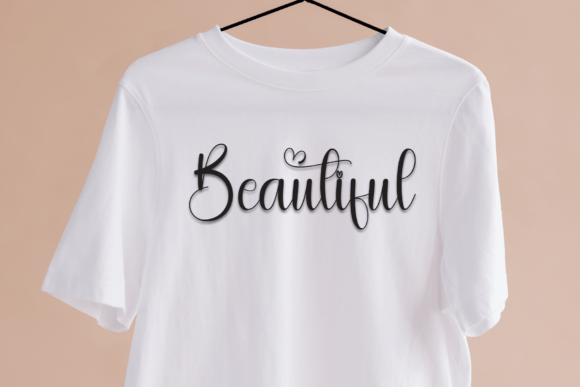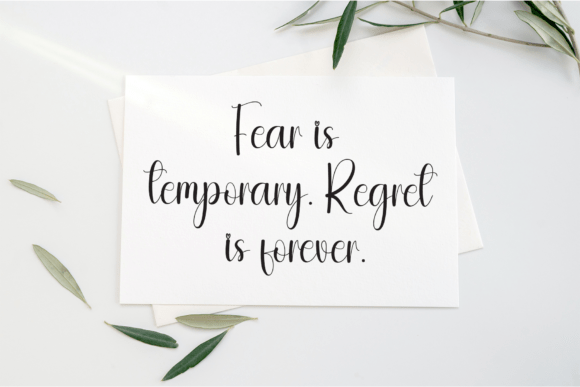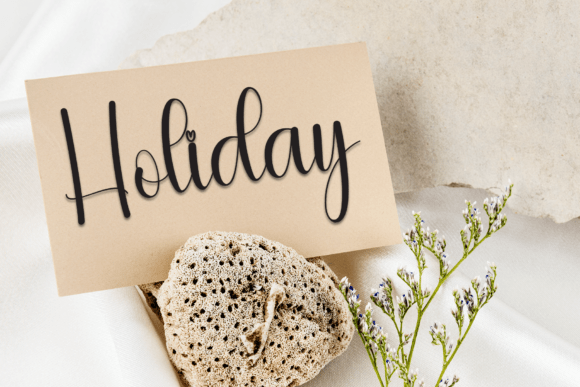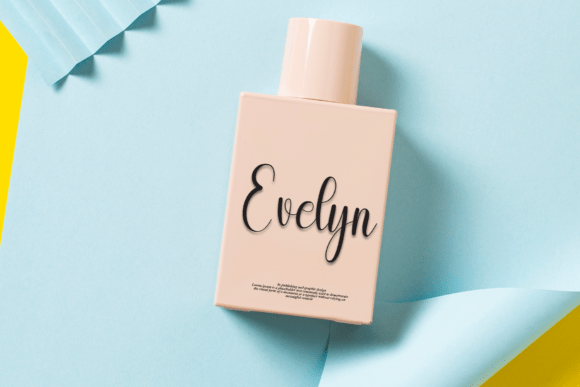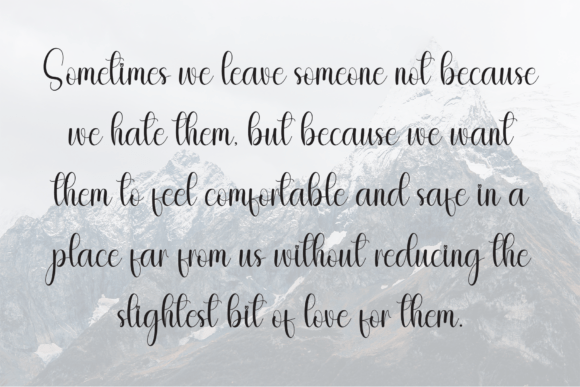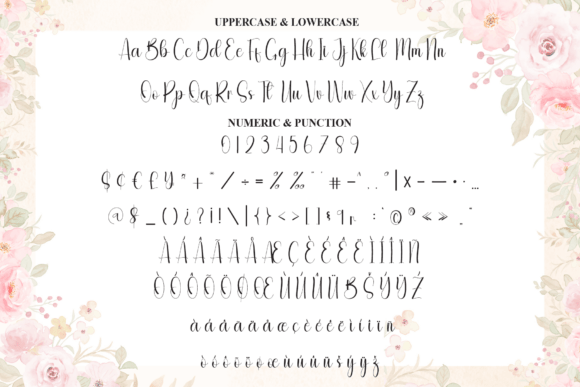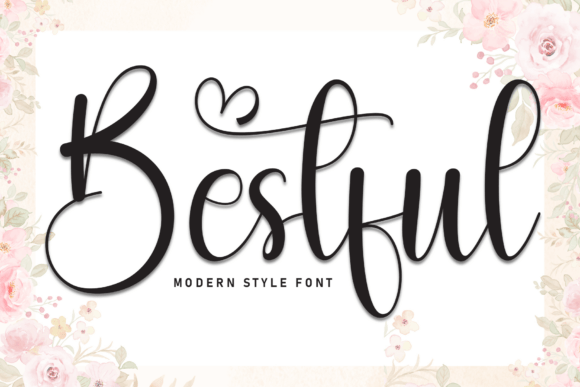
Introducing Bestful Font: The Ultimate Modern Script Font for Elegant Designs
Are you a designer or crafter looking for a font that exudes romance, warmth, and elegance? Look no further than Bestful Font, a charming modern script font that is sure to bring a touch of sophistication to any design. With its elegant curves, flowing swashes, and heart-shaped details, Bestful is the perfect choice for a variety of projects, from wedding invitations and feminine branding to greeting cards and floral-themed designs.
The Characteristics of Bestful Font
Bestful Font is a modern script font that boasts a range of characteristics that make it truly unique. Its elegant lettering is designed to evoke a sense of romance and warmth, making it perfect for designs that require a personal touch. The font features:
- Elegant Curves: Bestful Font features smooth, flowing curves that give it a sophisticated and refined look.
- Flowing Swashes: The font includes a range of swashes that add a touch of drama and elegance to any design.
- Heart-Shaped Details: The heart-shaped swash details in Bestful Font add a playful and romantic touch to any design.
- Smooth Flow: The font has a smooth flow that makes it easy to read and perfect for use in a variety of designs.
Uses for Bestful Font
Bestful Font is a versatile font that can be used in a variety of designs, including:
- Wedding Invitations: The elegant and romantic nature of Bestful Font makes it perfect for wedding invitations and other wedding-related designs.
- Feminine Branding: The font’s feminine and sophisticated look makes it ideal for use in branding and packaging designs for feminine products.
- Greeting Cards: Bestful Font is perfect for use in greeting cards, including birthday cards, anniversary cards, and more.
- Floral-Themed Projects: The font’s elegant and refined look makes it perfect for use in floral-themed designs, including stationery, packaging, and more.
Why Choose Bestful Font?
There are many reasons why Bestful Font is the perfect choice for designers and crafters looking for a modern script font. Some of the benefits of using Bestful Font include:
- Unique and Elegant Design: Bestful Font features a unique and elegant design that is sure to make any design stand out.
- Highly Versatile: The font can be used in a variety of designs, from wedding invitations to greeting cards and more.
- Easy to Read: The smooth flow of Bestful Font makes it easy to read, even at small sizes.
- Perfect for Personal Projects: The font’s elegant and refined look makes it perfect for use in personal projects, such as scrapbooking and card making.
Tips for Using Bestful Font
To get the most out of Bestful Font, here are a few tips to keep in mind:
- Use it with Other Fonts: Bestful Font pairs well with other fonts, including sans serif fonts and serif fonts.
- Experiment with Swashes: The swashes in Bestful Font can add a touch of drama and elegance to any design.
- Use it in Combination with Images: Bestful Font looks great when used in combination with images, including floral patterns and watercolor illustrations.
Overall, Bestful Font is a charming modern script font that is sure to bring a touch of romance and elegance to any design. With its elegant curves, flowing swashes, and heart-shaped details, it’s the perfect choice for designers and crafters looking for a sophisticated and refined font.